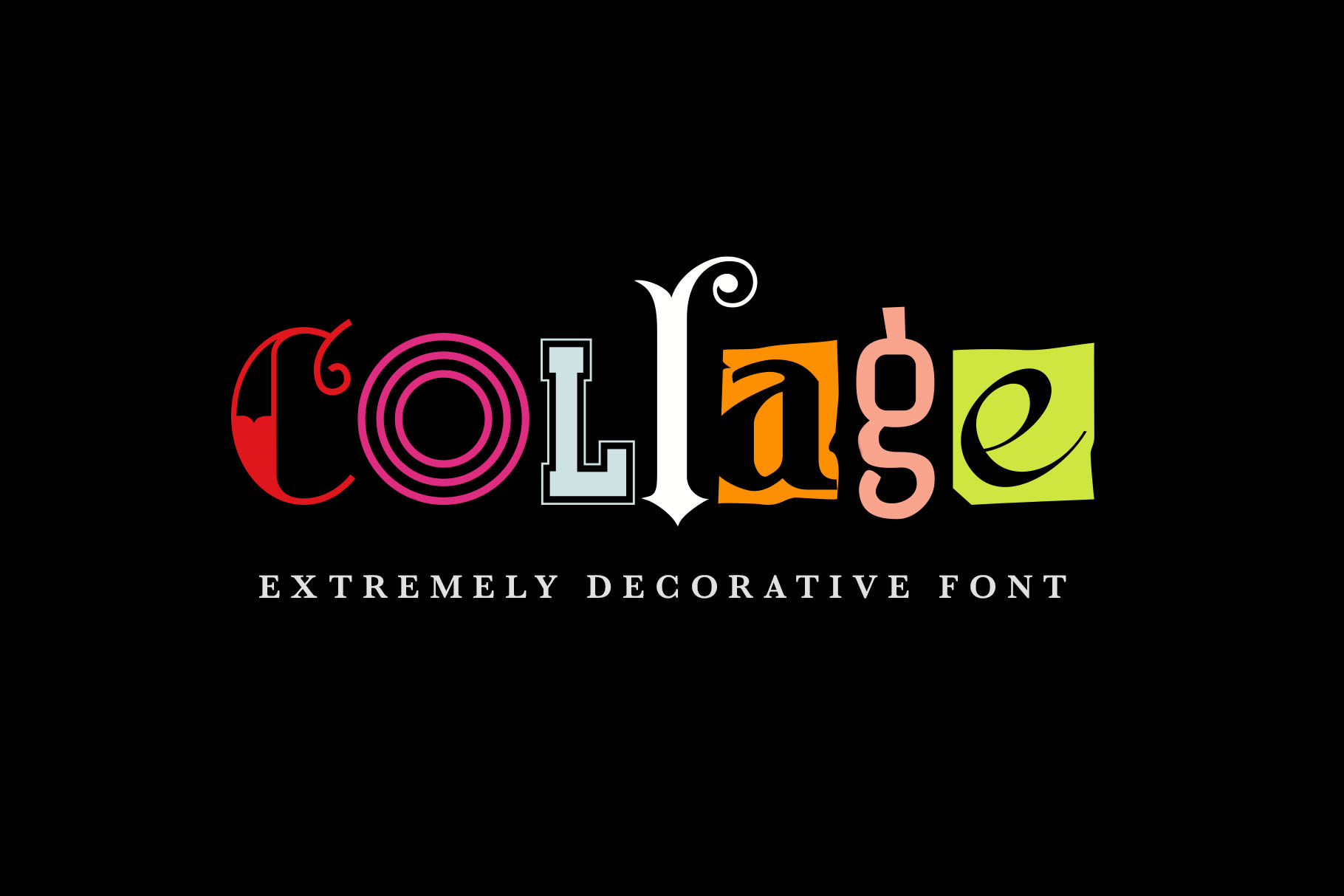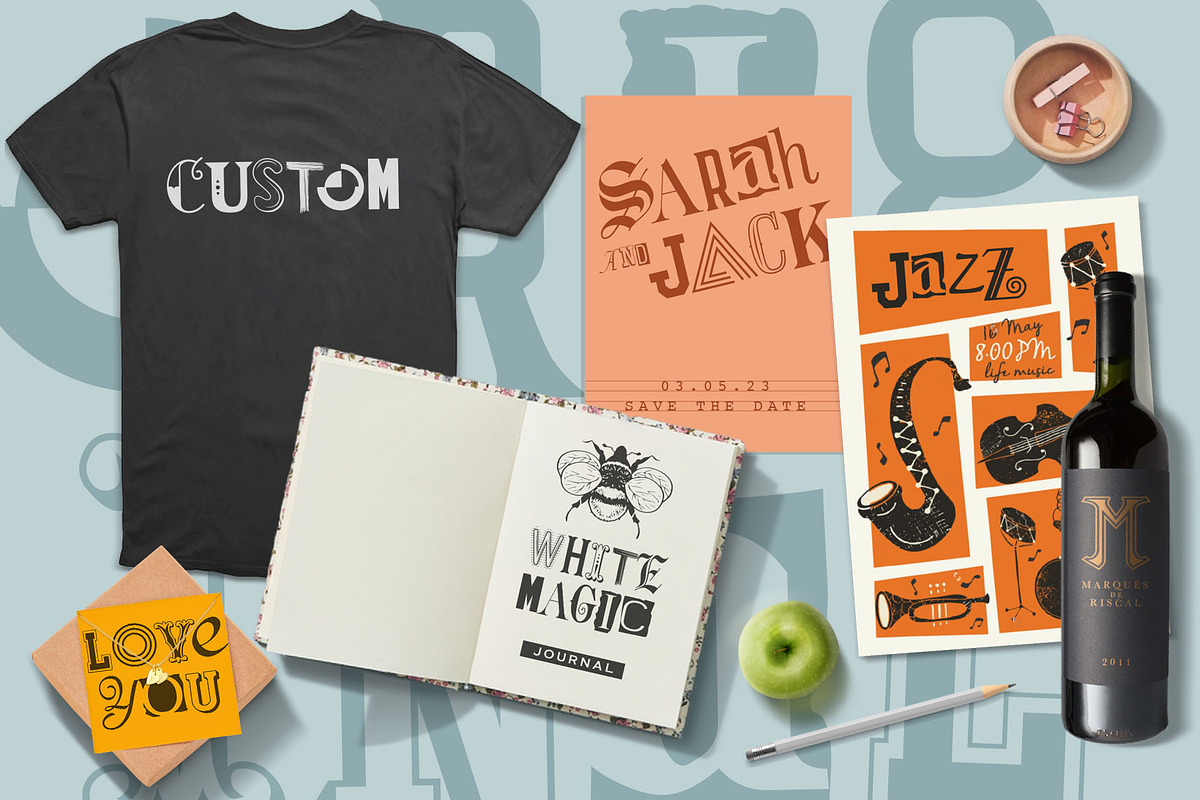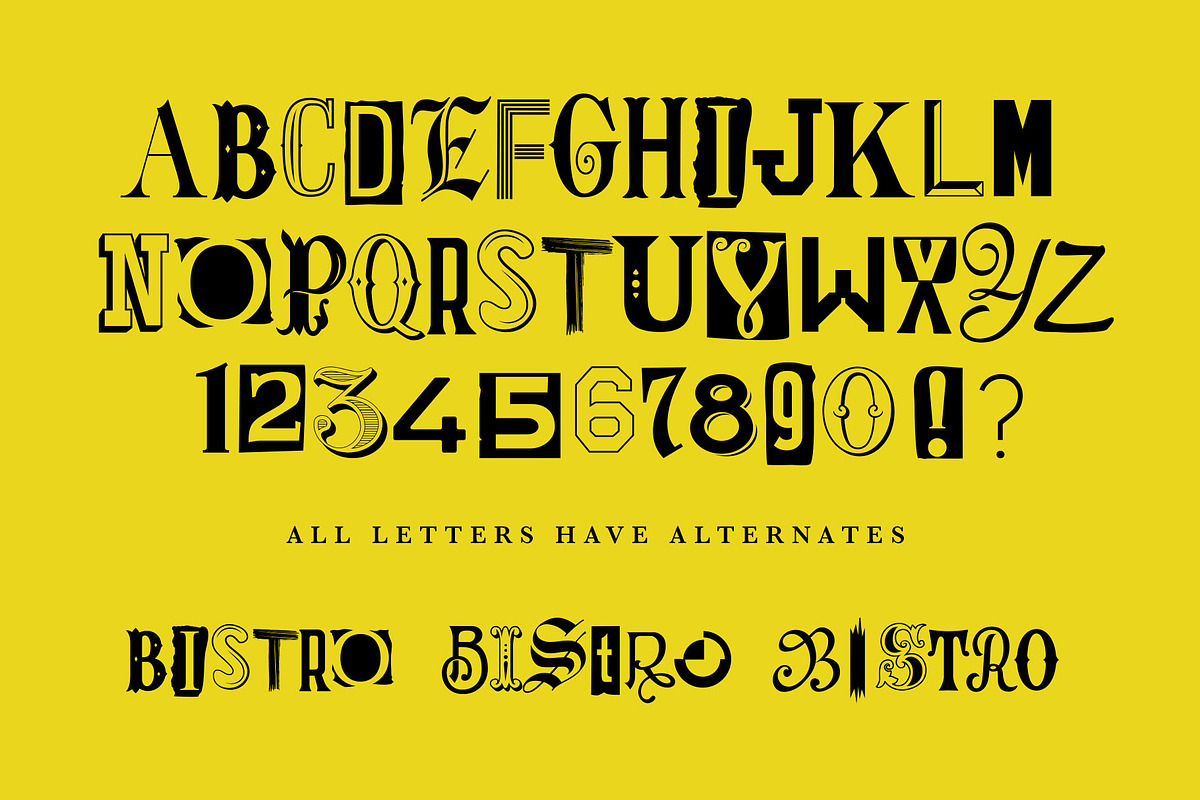
Collage - fancy decorative font
A font where every letter is different. it's a one of a kind all-caps including figures and some basic punctuation marks. Every letter has at least 1 alternative shape. It's great for kids' books illustrations/covers, typographical posters, and other design works focused on decorative typography.